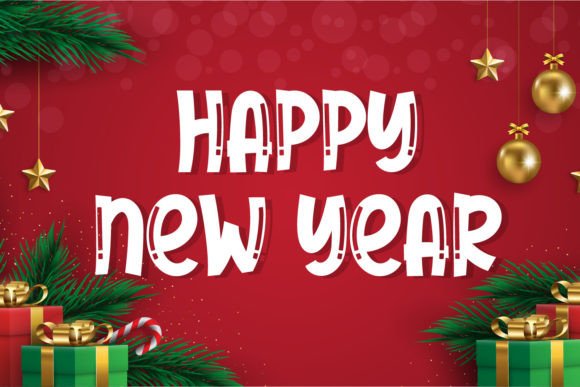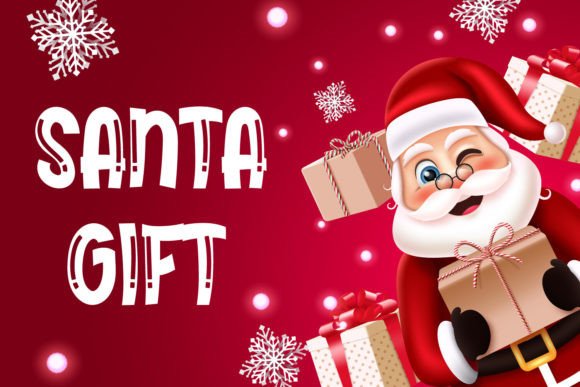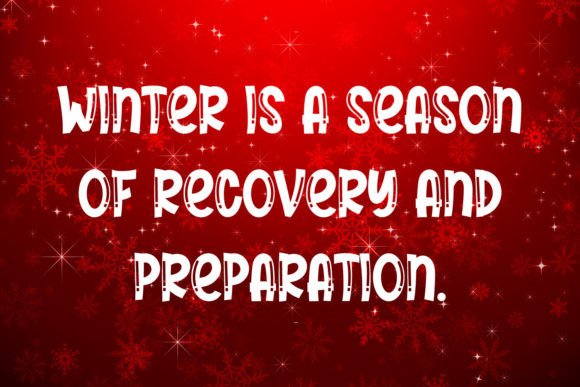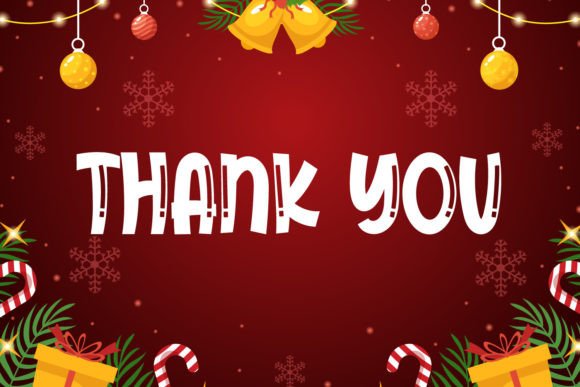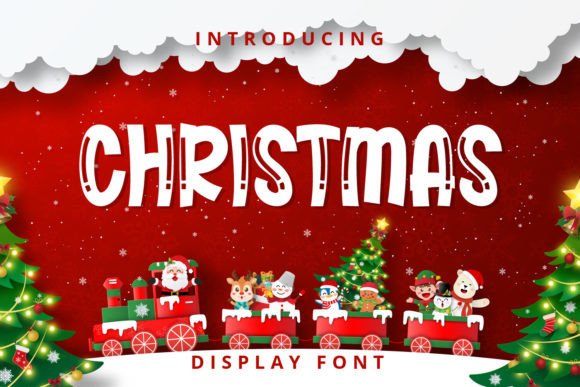
Introducing Christmas Font: The Perfect Addition to Your Holiday Designs
Are you looking for a font that captures the fun and playful spirit of Christmas? Look no further than Christmas Font! This brilliant, fun, and cute display font is specifically designed for children-themed designs, and it’s perfect for adding a touch of holiday cheer to your projects. When combined with bright colors, Christmas Font is sure to make your designs stand out.
What Makes Christmas Font So Special?
Christmas Font is a unique and eye-catching font that’s perfect for designers and crafters who want to add a personal touch to their holiday designs. Here are just a few features that make Christmas Font so special:
• Fun and playful design: Christmas Font is designed to evoke the fun and playfulness of the holiday season. Its bold and curly lines make it perfect for designs that require a touch of whimsy.
• Perfect for children-themed designs: Whether you’re designing for kids or just want to add a touch of childhood magic to your designs, Christmas Font is the perfect choice.
• Versatile: Christmas Font can be used for a wide range of design projects, from logos and quotes to T-shirts, greeting cards, and business cards.
Ways to Use Christmas Font in Your Designs
Christmas Font is a versatile font that can be used in a variety of design projects. Here are just a few ideas to get you started:
• Logos: Add a touch of holiday cheer to your logos with Christmas Font. It’s perfect for seasonal promotions or limited-time offers.
• Quotes and posters: Use Christmas Font to add a playful touch to your holiday quotes and posters. You can also use it to create fun and inspiring messages for your social media followers.
• T-shirts and apparel: Christmas Font is perfect for designing holiday-themed T-shirts, hoodies, and other apparel. You can use it to create fun and playful designs that are sure to be a hit.
• Greeting cards and invitations: Add a personal touch to your holiday greeting cards and invitations with Christmas Font. It’s perfect for creating custom designs that will make your loved ones feel special.
• Business cards and stationery: Use Christmas Font to add a touch of holiday cheer to your business cards and stationery. It’s a great way to make your brand stand out during the holiday season.
Tips for Using Christmas Font Effectively
Here are a few tips for using Christmas Font effectively in your designs:
• Combine with bright colors: Christmas Font is designed to be paired with bright colors. Try combining it with bold and bright hues to create designs that really pop.
• Experiment with different sizes: Christmas Font looks great in a variety of sizes. Experiment with different sizes to find the one that works best for your design.
• Use it sparingly: While Christmas Font is a fun and playful font, it can be overwhelming if used too much. Use it sparingly to add a touch of holiday cheer to your designs.
Christmas Font is a fun and playful font that’s perfect for adding a touch of holiday cheer to your designs. Its bold and curly lines make it perfect for children-themed designs, and it’s versatile enough to be used for a wide range of projects. Whether you’re a designer or crafter, Christmas Font is a great addition to your font collection. So why wait? Download Christmas Font today and start creating holiday designs that are sure to impress!